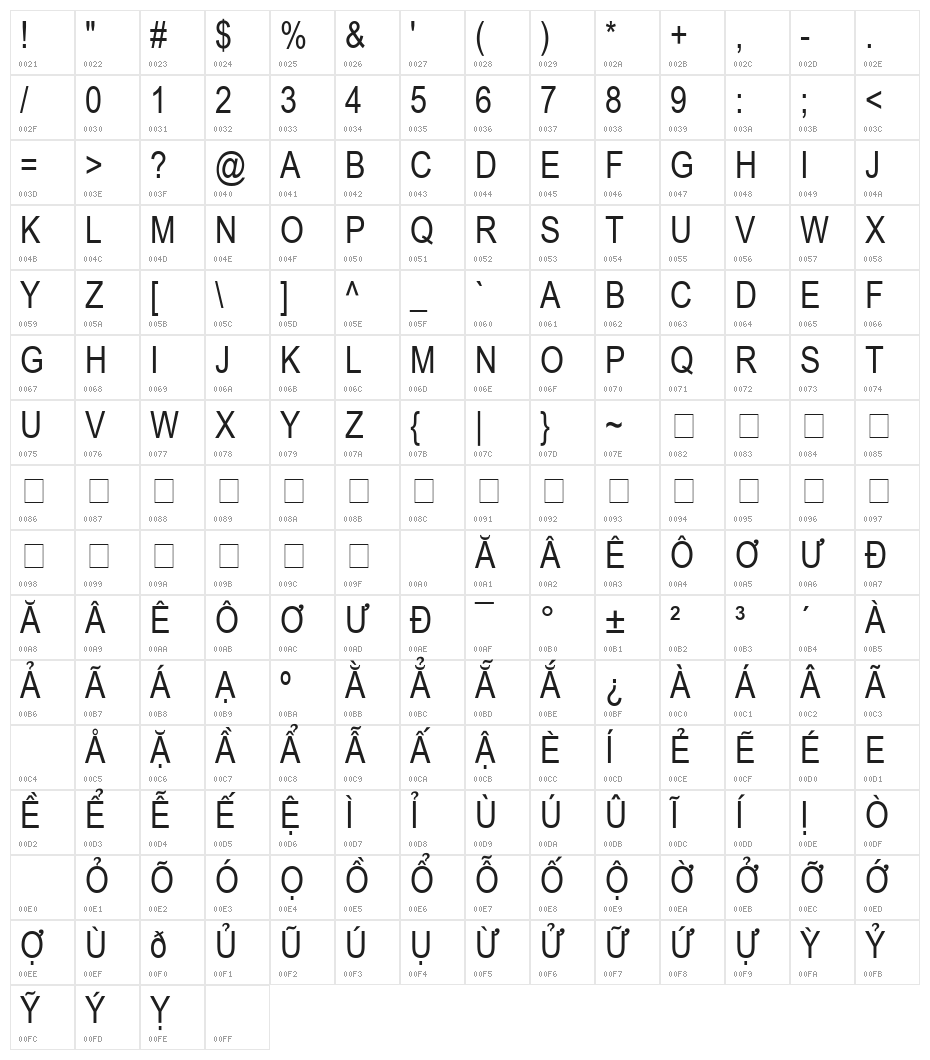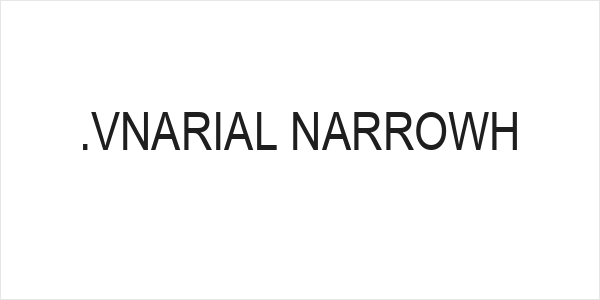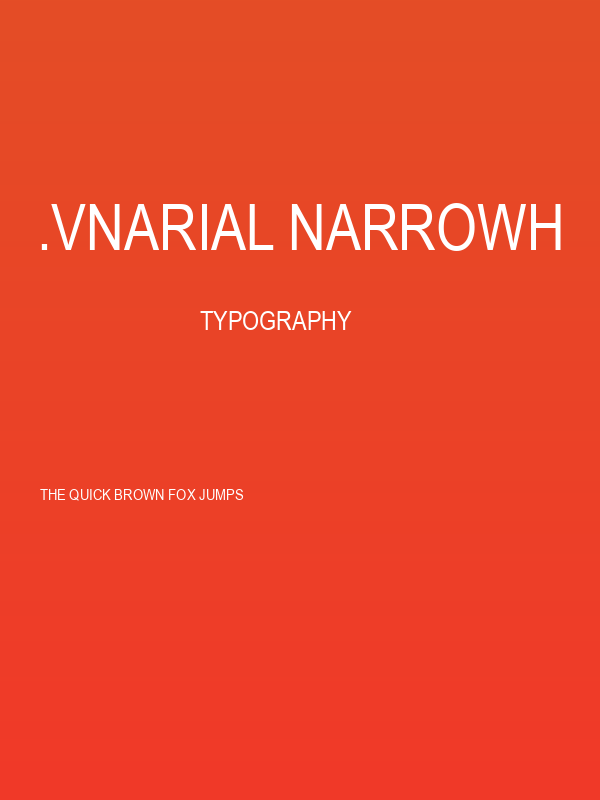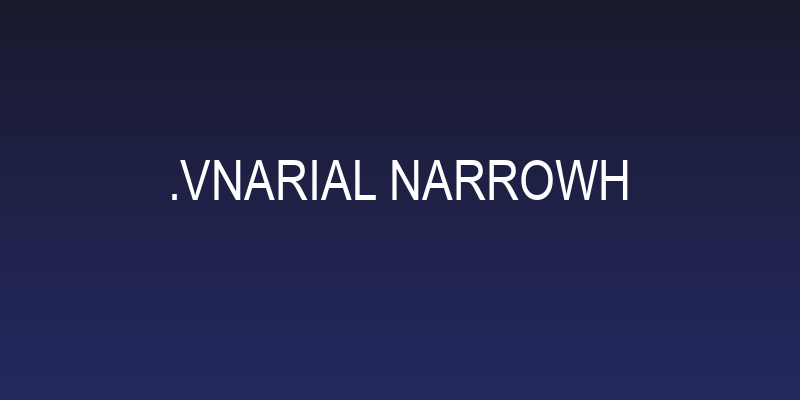
.VnArial NarrowH Font
.VnArial NarrowH Description
This font features a clean and modern sans-serif design, characterized by its narrow and elongated letterforms. The strokes are consistent in width, providing a uniform appearance across all characters. The uppercase and lowercase letters maintain a balanced proportion, enhancing readability. The numerals are straightforward and align well with the overall style, making them suitable for various applications. Special characters are clearly defined, adding to the font's versatility. Its simplicity and clarity make it ideal for both digital and print media, where legibility is crucial.